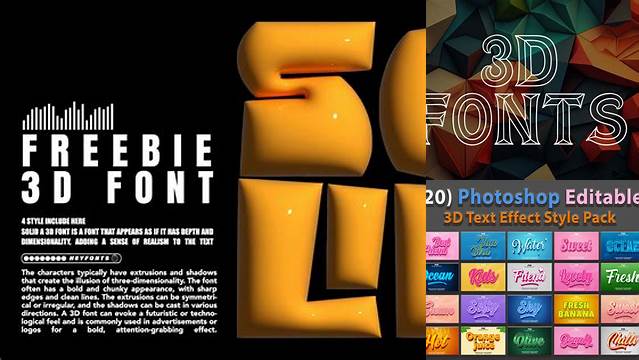
Hey guys! Are you looking to add some serious dimension to your Photoshop projects? One of the coolest ways to do that is by using 3D fonts. They can transform your text from flat and ordinary to eye-catching and extraordinary. But finding the right 3D font, especially one that’s free, can sometimes feel like searching for a needle in a haystack. Don't worry, though! This comprehensive guide is here to make your life easier. We’ll dive deep into the world of 3D fonts for Photoshop, explore where you can find them for free, and give you tips on how to use them effectively.
What are 3D Fonts and Why Use Them?
First things first, let's talk about what exactly 3D fonts are. Unlike regular fonts that are flat, 2D designs, 3D fonts have depth and perspective. This gives them a realistic, three-dimensional appearance that can make your text pop off the screen or page. Think about the logos you see for major brands, movie titles, and video game graphics – many of them use 3D fonts to create a lasting impression. The visual appeal of 3D fonts is undeniable. They grab attention and add a professional, polished look to your work. Whether you're designing a poster, creating a website banner, or working on a branding project, 3D fonts can elevate your designs to the next level.
Benefits of Using 3D Fonts
- Visual Impact: 3D fonts instantly make your text more visually appealing. The added depth and dimension draw the eye and create a strong focal point.
- Professional Look: Using 3D fonts can give your designs a professional and sophisticated touch. They convey a sense of quality and attention to detail.
- Versatility: 3D fonts can be used in a wide range of projects, from posters and banners to logos and website graphics. Their versatility makes them a valuable asset in any designer's toolkit.
- Creative Expression: 3D fonts offer a unique way to express your creativity. They allow you to experiment with different styles, textures, and effects to achieve the perfect look for your project.
- Memorability: Text that stands out is more likely to be remembered. 3D fonts help your message stick in the minds of your audience.
When you incorporate 3D fonts into your projects, you're not just adding text; you're adding a layer of visual interest that can significantly enhance the overall design. This is especially important in today's visually-driven world, where standing out from the crowd is crucial. The psychology behind using 3D elements in design is rooted in our natural perception of depth and space. Our brains are wired to notice and appreciate three-dimensional objects, which is why 3D fonts can have such a powerful impact. They create a sense of realism and presence that flat text simply can't match.
- MyFonts: While MyFonts is primarily a marketplace for premium fonts, they often have free font offerings, including some 3D options. Keep an eye on their freebies section. MyFonts is known for its high-quality fonts and excellent customer support. The site's WhatTheFont tool is also incredibly useful for identifying fonts you see in images or designs.
- Behance: Behance, Adobe's online platform for showcasing creative work, is a hidden gem for finding free fonts. Many designers share their creations, including 3D fonts, as free resources. The quality of fonts on Behance is generally very high, as they are often created by professional designers. You can also connect with the font creators and ask them questions about their work.
- Creative Market: Similar to MyFonts, Creative Market is a marketplace for design assets, but they also offer free goods every week. You might just find a 3D font in their freebies section. Creative Market is a great place to discover unique and handcrafted fonts. The site's community features allow you to interact with other designers and get feedback on your work.
- Pixel Surplus: Pixel Surplus is a fantastic resource for free and premium design resources, including fonts. They often have bundles of free fonts, which can be a great way to build your font library. Pixel Surplus's fonts are typically high-quality and come with commercial licenses, making them suitable for a wide range of projects. The site also offers a variety of other design assets, such as mockups, graphics, and templates.
So there you have it – a comprehensive guide to finding and using 3D fonts for Photoshop! With the right fonts and techniques, you can create stunning designs that truly stand out. Remember to explore the free resources mentioned, experiment with different styles, and most importantly, have fun! 3D fonts are a fantastic tool for adding visual impact to your projects, and mastering them will undoubtedly elevate your design skills. Whether you're working on a poster, a logo, or any other type of project, 3D fonts can help you create a professional and eye-catching result. Just remember to use them judiciously, consider the context of your design, and always prioritize readability. Happy designing, guys!